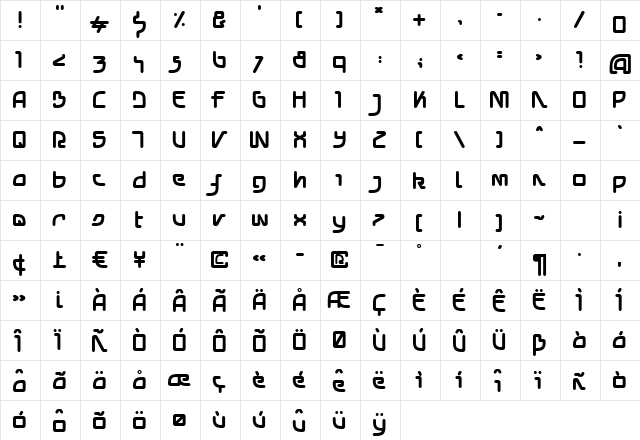
Neo TokioOne Regular
Design Context for Neo TokioOne Typeface
Neo TokioOne is a composed and adaptable typeface that performs quietly and consistently across a wide range of design contexts.